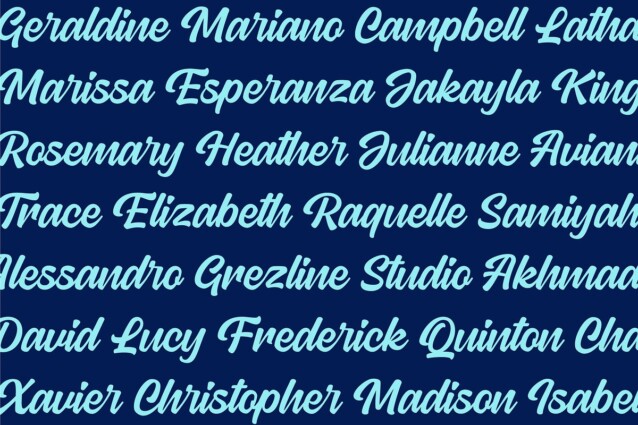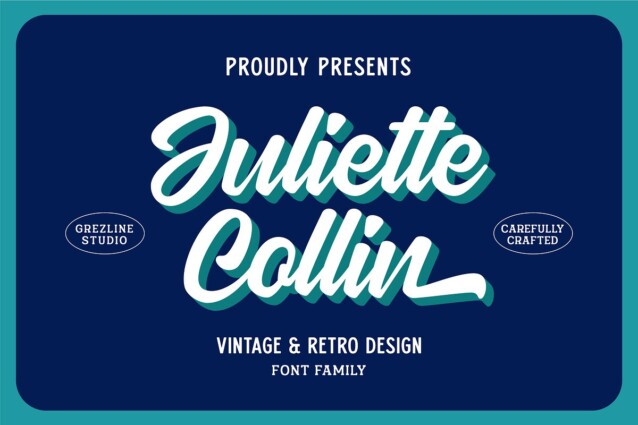
Juliette Collin Font is a retro script with bunch of alternates that will make your project looks more stylish and stunning. With ending swash that will support the retro vibes. Juliette Collin is perfect for headings, covers, posters, logos, quotes, product packaging, merchandise, social media and much more!